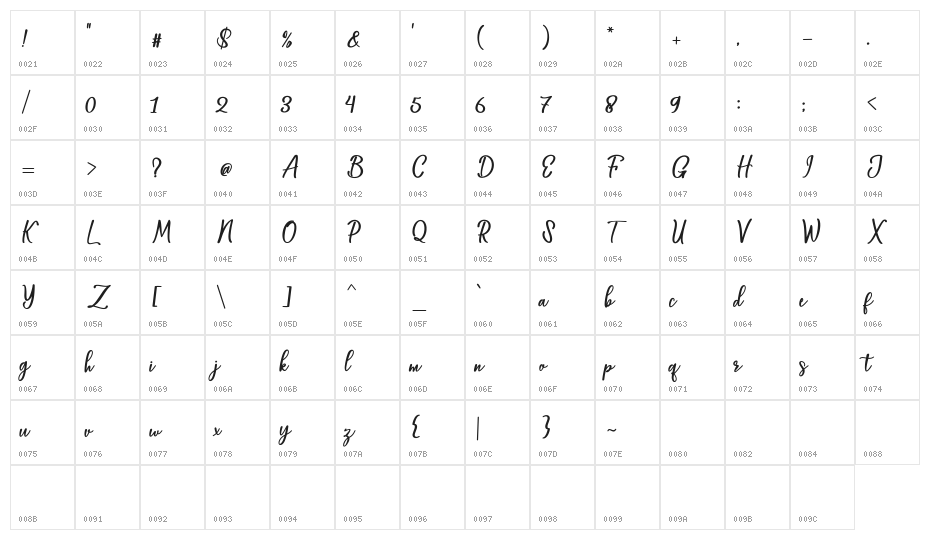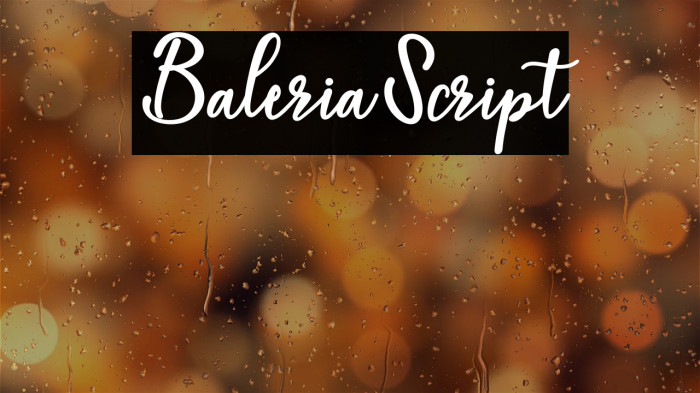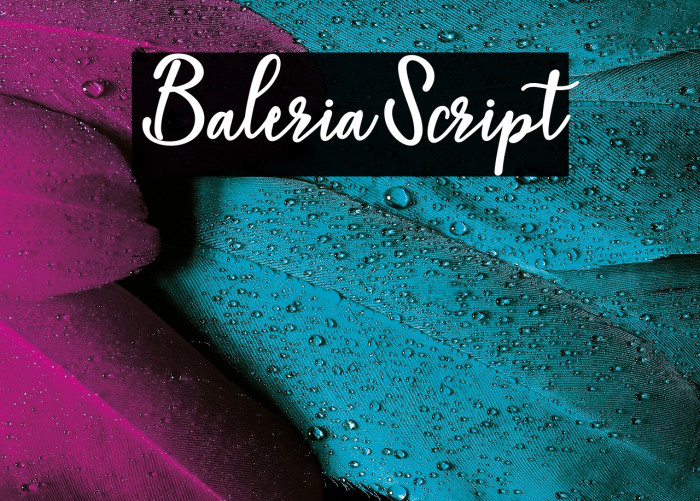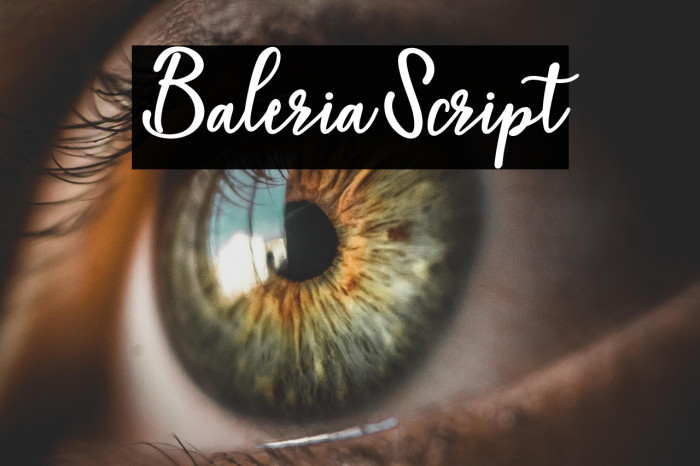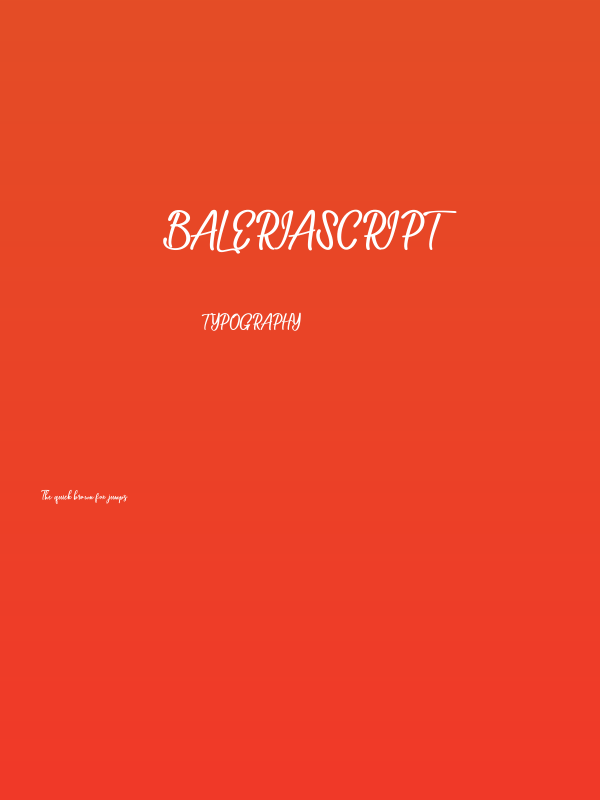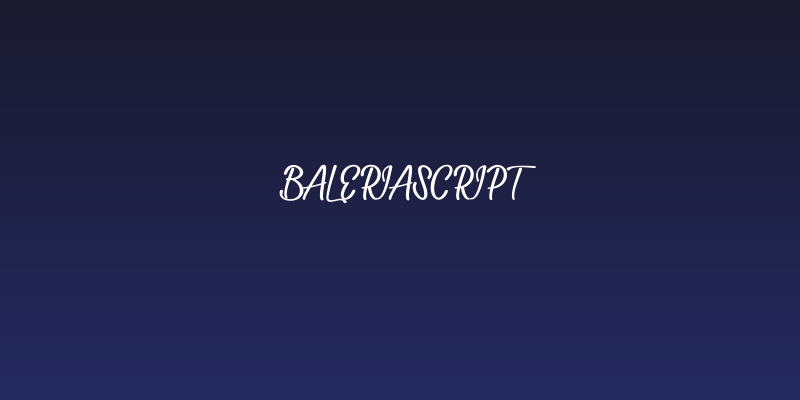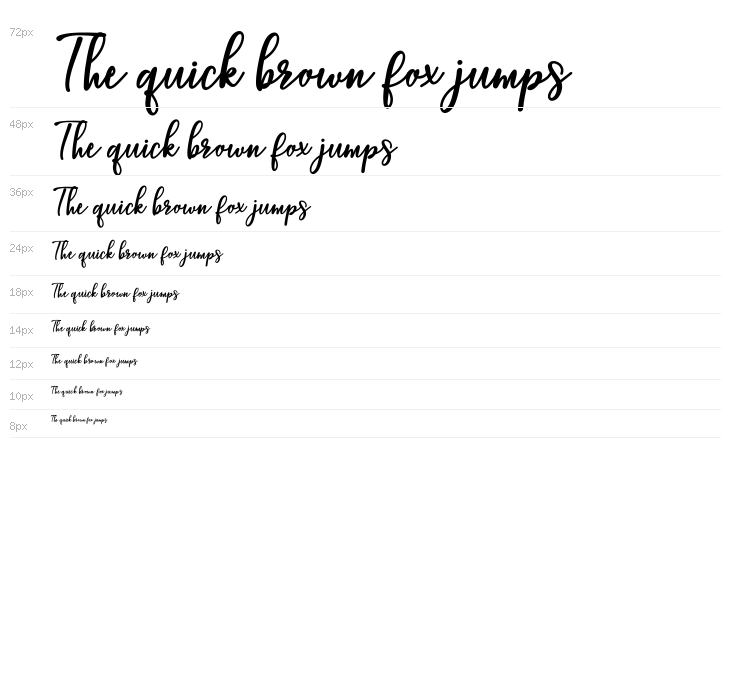
BaleriaScript Font
BaleriaScript Description
This font exudes a lively and elegant script style, characterized by its flowing and connected letterforms. The uppercase letters are bold and graceful, with a slight slant that adds to the dynamic feel. The lowercase letters maintain a consistent flow, enhancing readability while preserving the script's decorative nature. Numerals are clear and distinct, matching the overall aesthetic. Special characters are thoughtfully designed, integrating seamlessly with the rest of the font. This script font is perfect for adding a touch of sophistication and personality to any project.